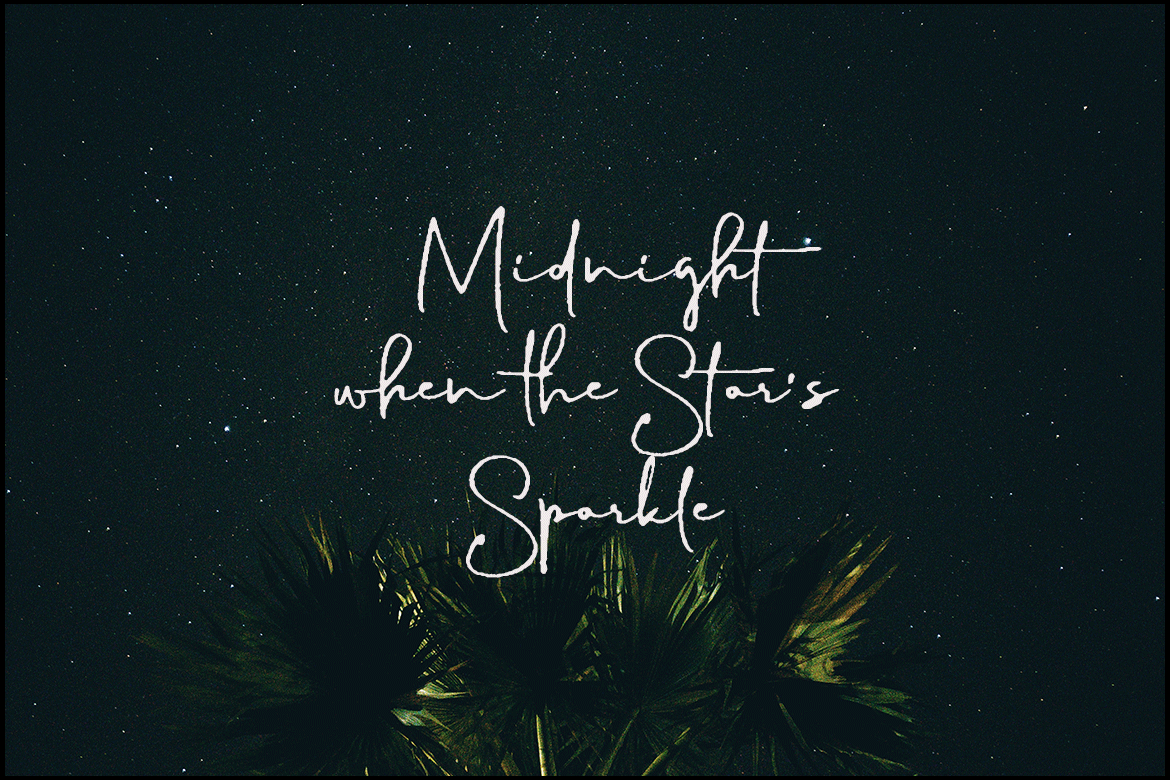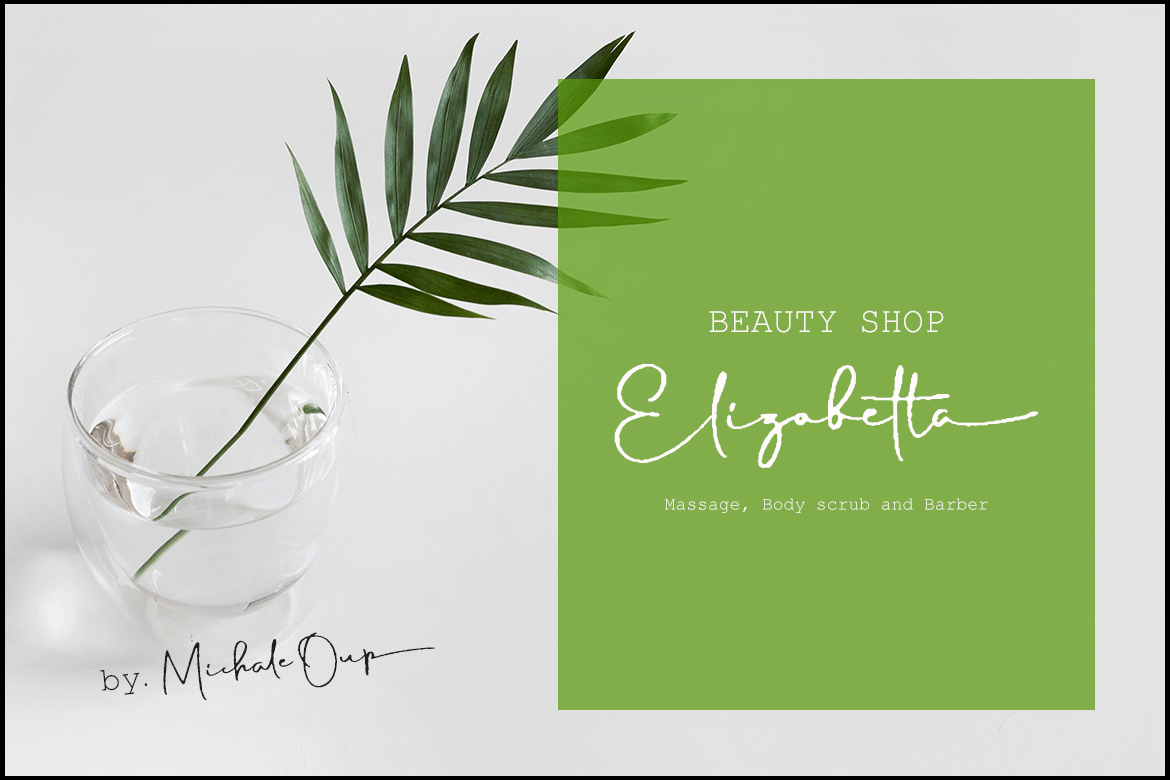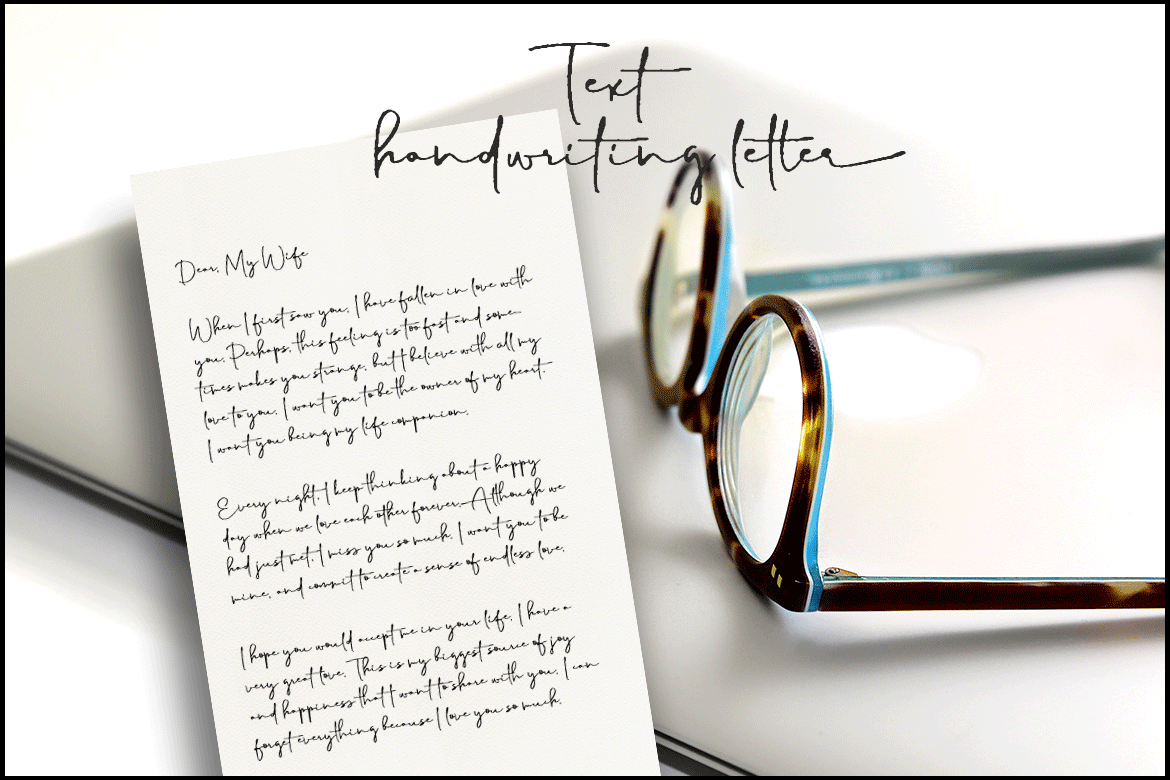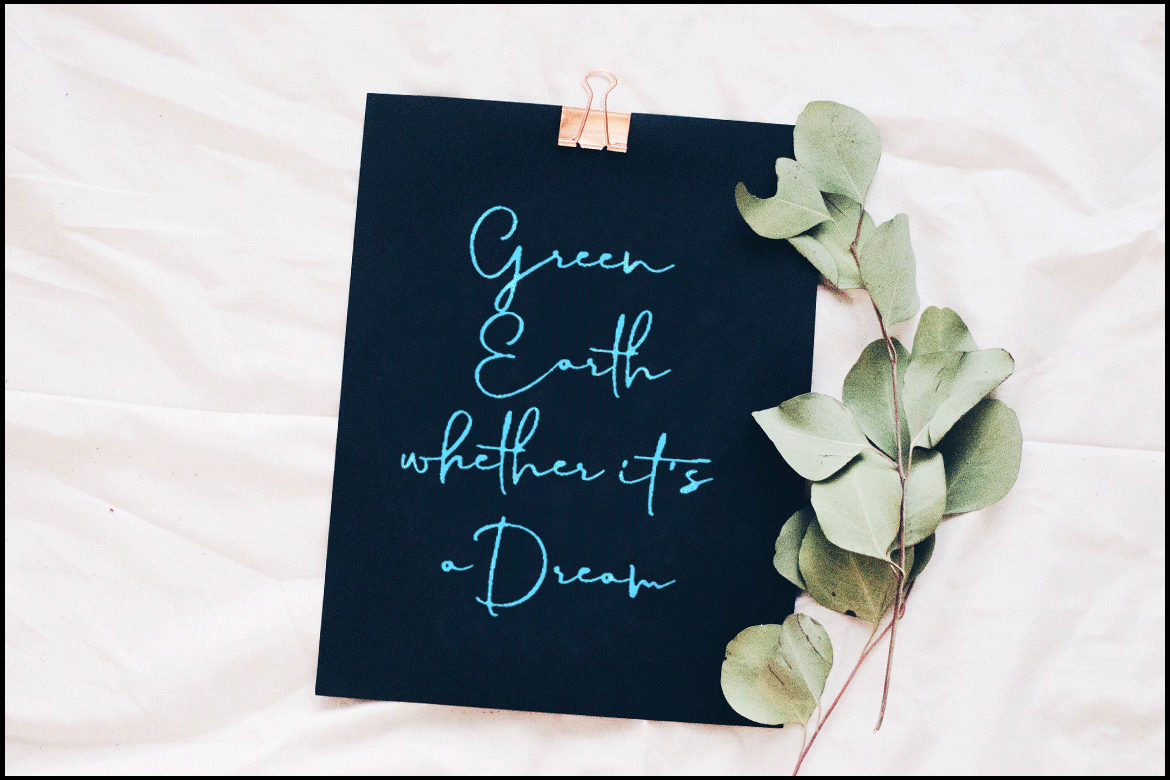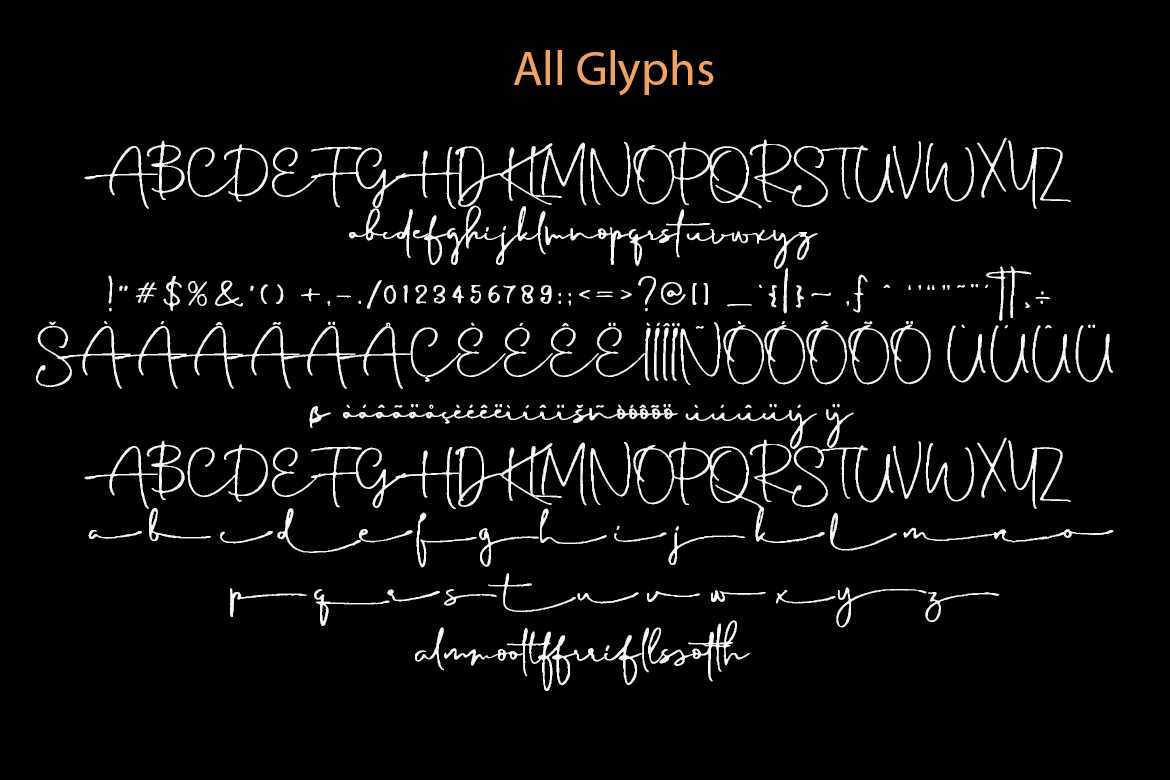
Merry Hamida
Merry Hamida a work that is purely a result of handwriting and writing by using a liquid ink pen, has a natural characteristic. this is perfect for invitations, signatures, blogs, social media, business cards, product brands.
Merry Hamida a work that is purely handwritten, has its own characteristics with the style of monoline It is perfect for invitations, signatures, blogs, social media, business cards, product brands.
The Merry Hamida font family includes 223 glyphs.